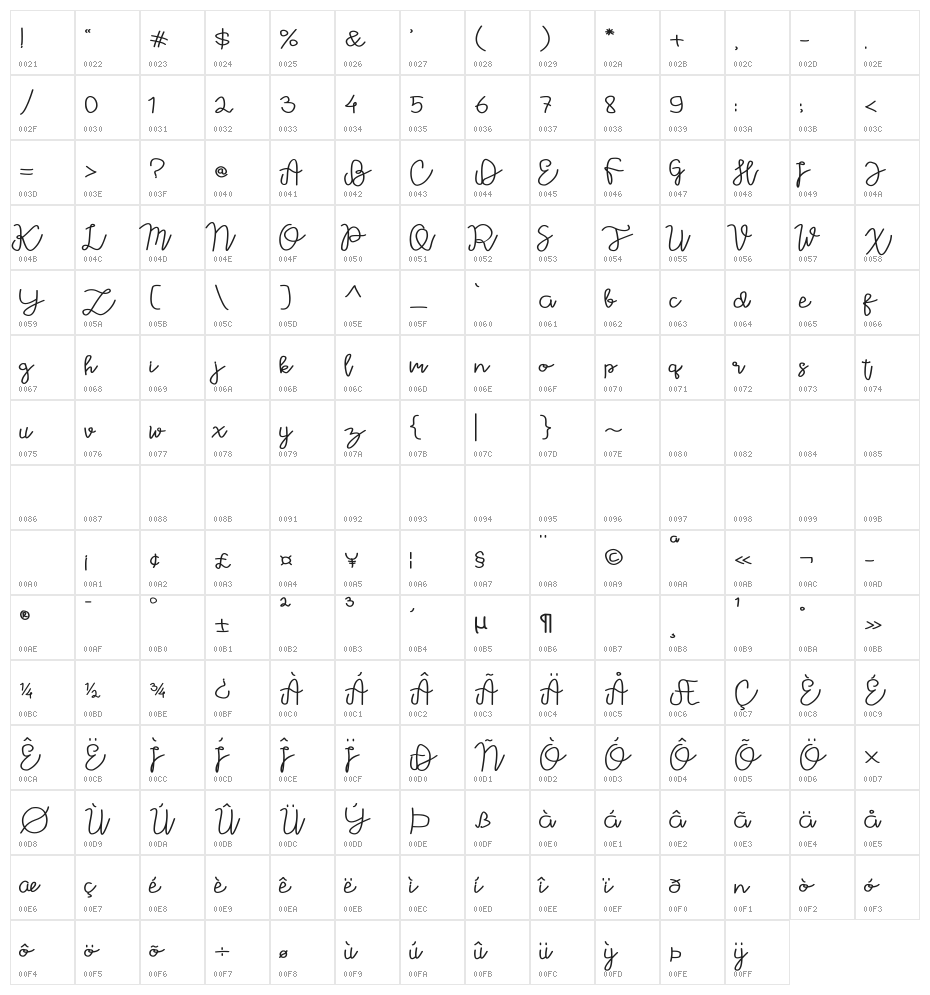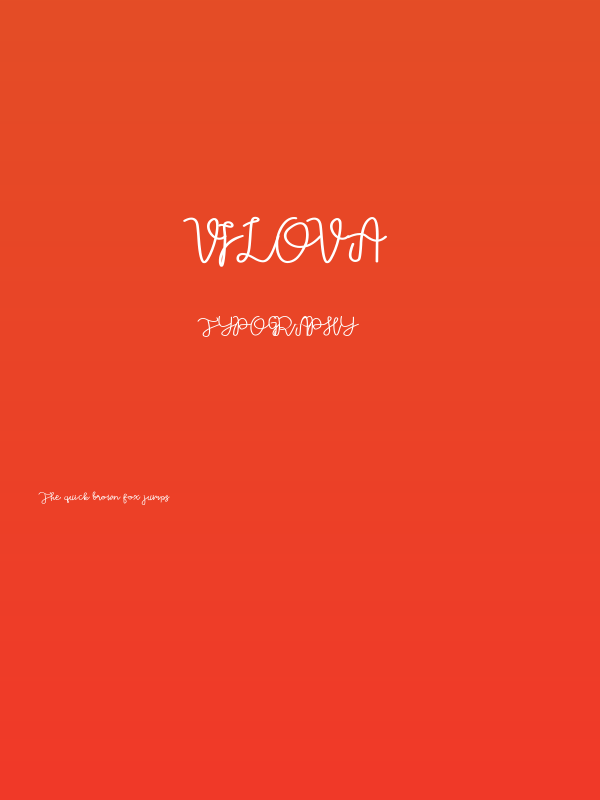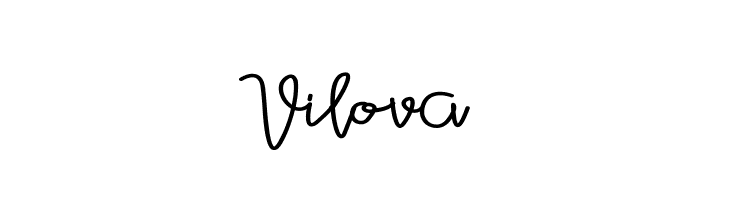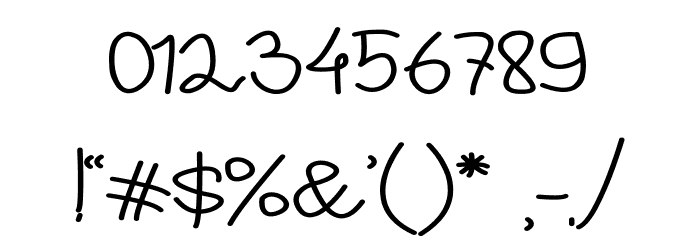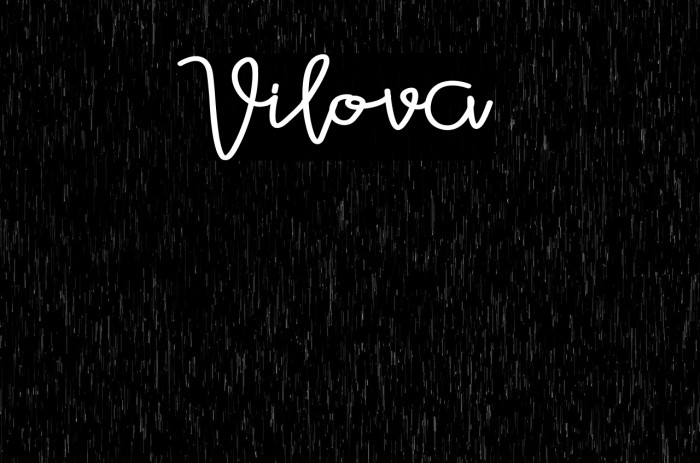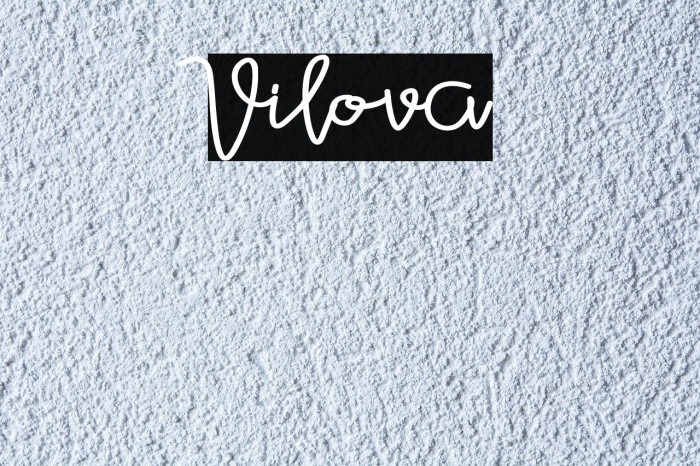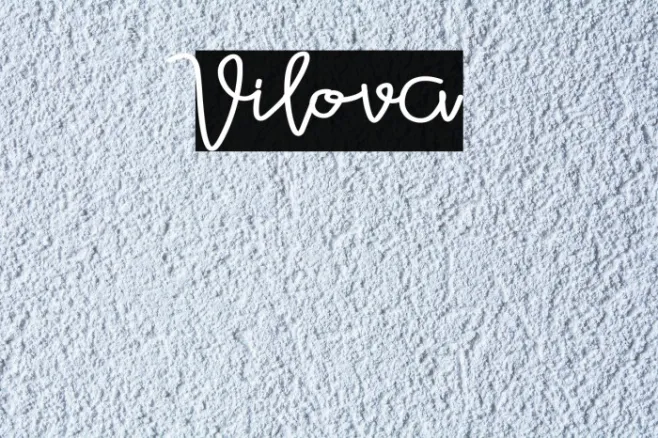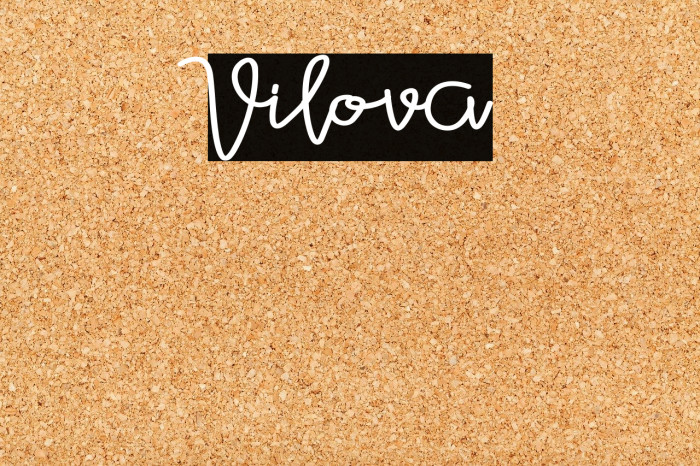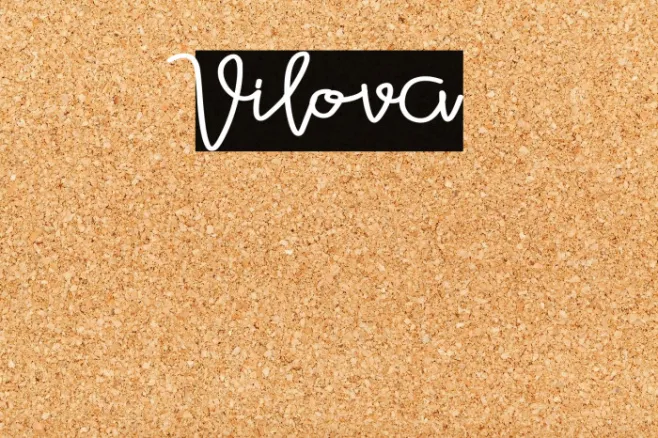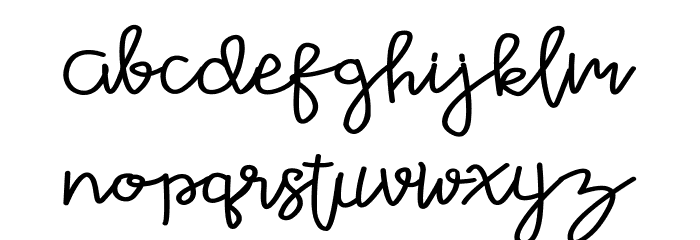
Vilova Font
Vilova Description
This font features a playful and elegant script style, characterized by its flowing, connected letters that mimic natural handwriting. The uppercase letters are bold and slightly exaggerated, adding a whimsical touch, while the lowercase letters maintain a consistent, smooth flow. The numerals are clear and legible, complementing the overall style with their rounded forms. Special characters are creatively integrated, maintaining the font's cohesive aesthetic. This font's charm lies in its ability to convey a sense of personal touch and creativity, making it ideal for projects that require a friendly and approachable feel.